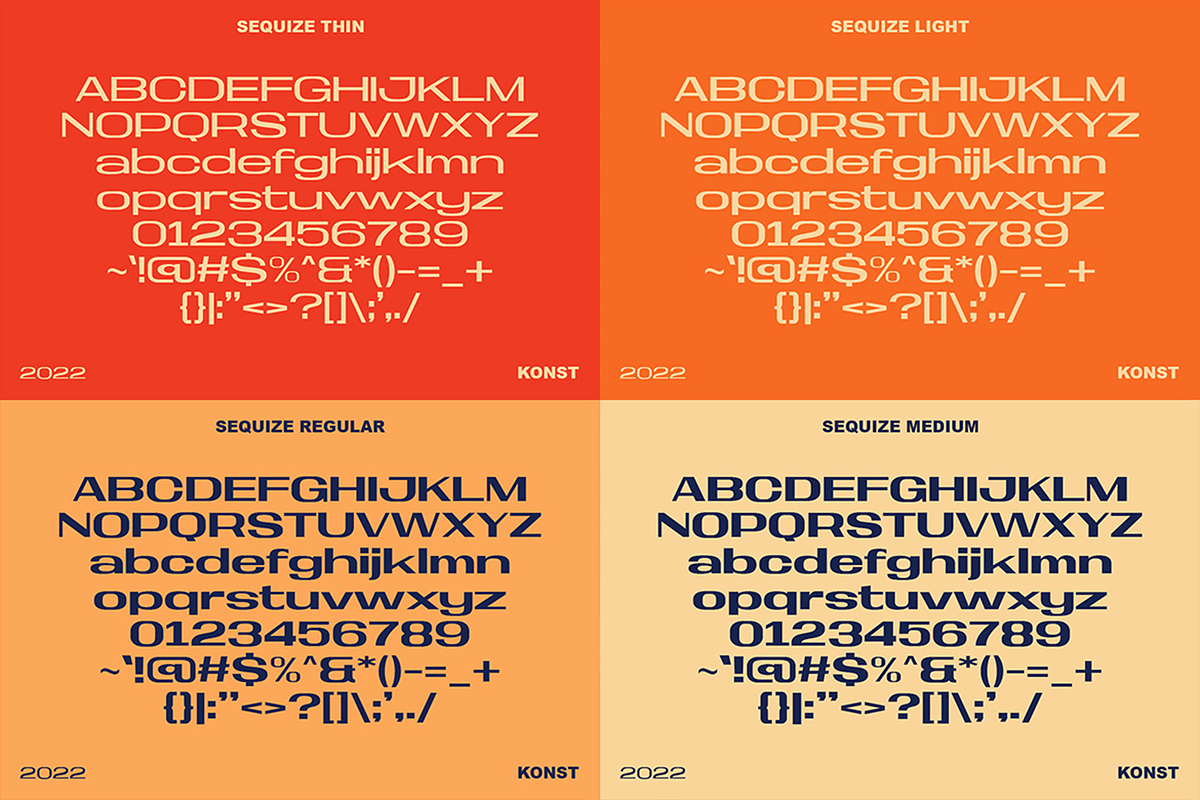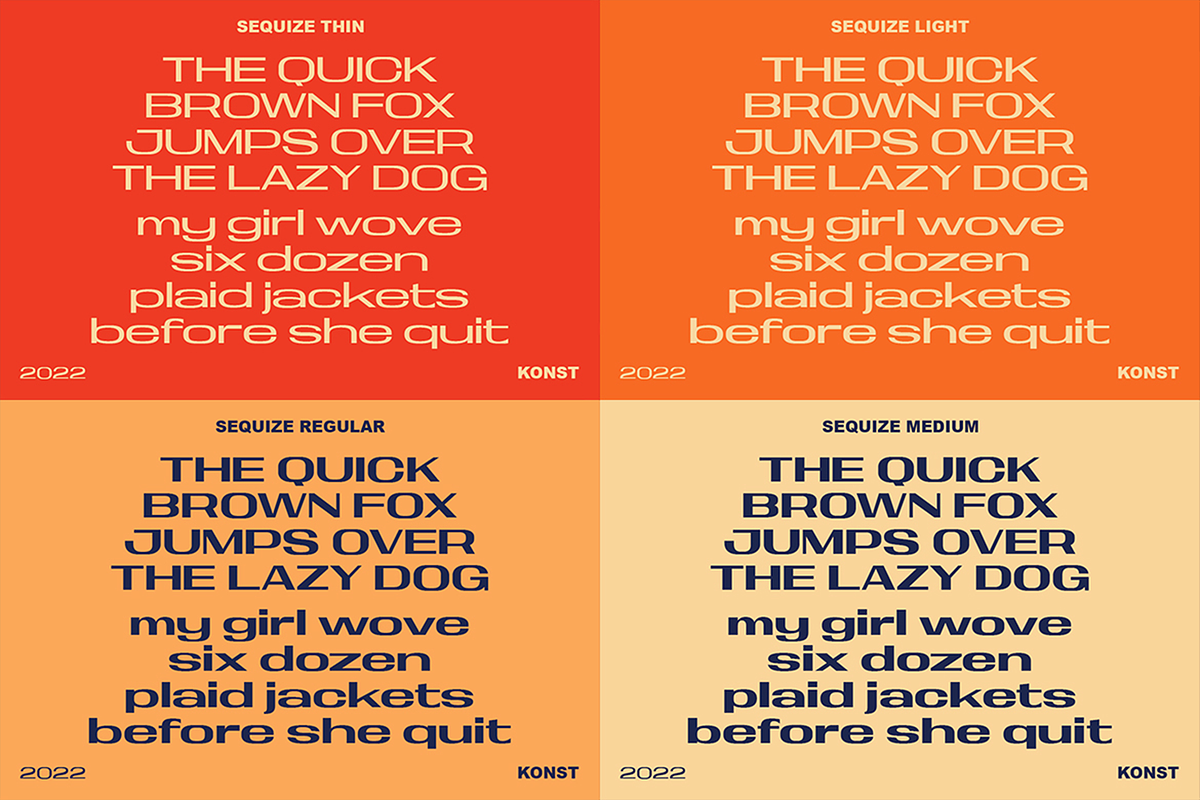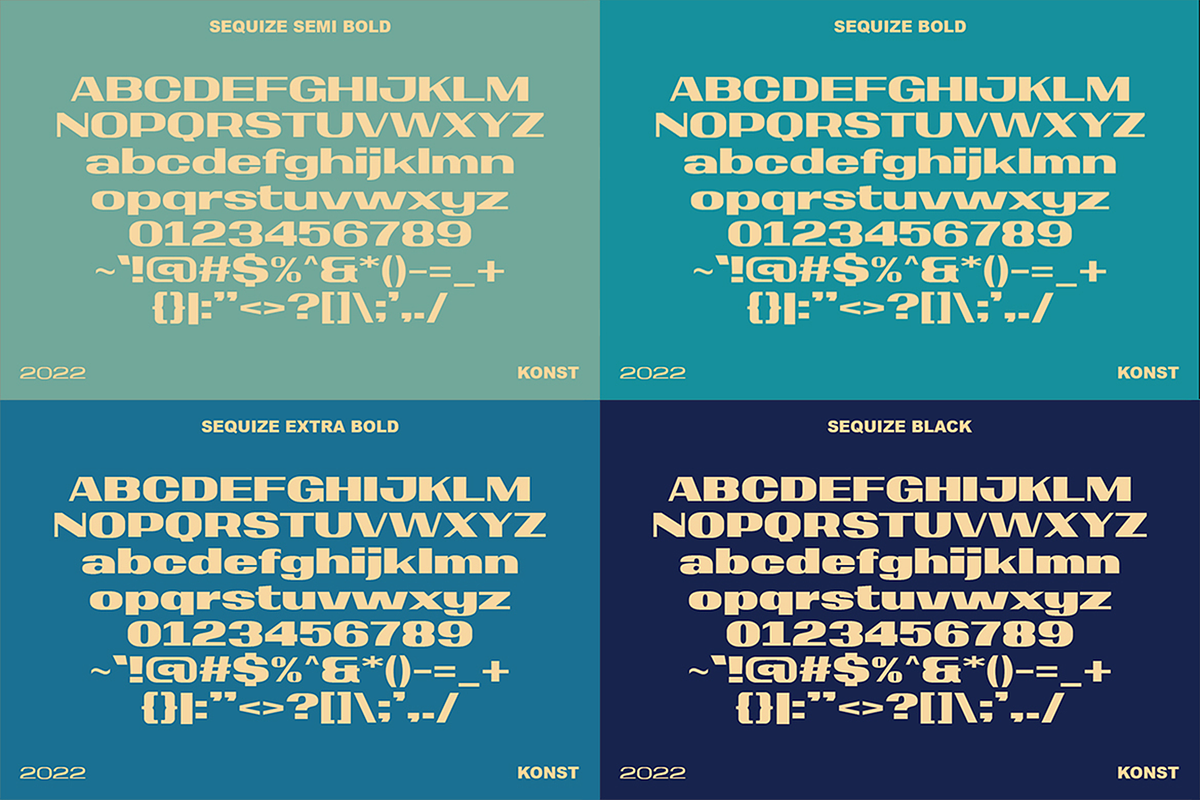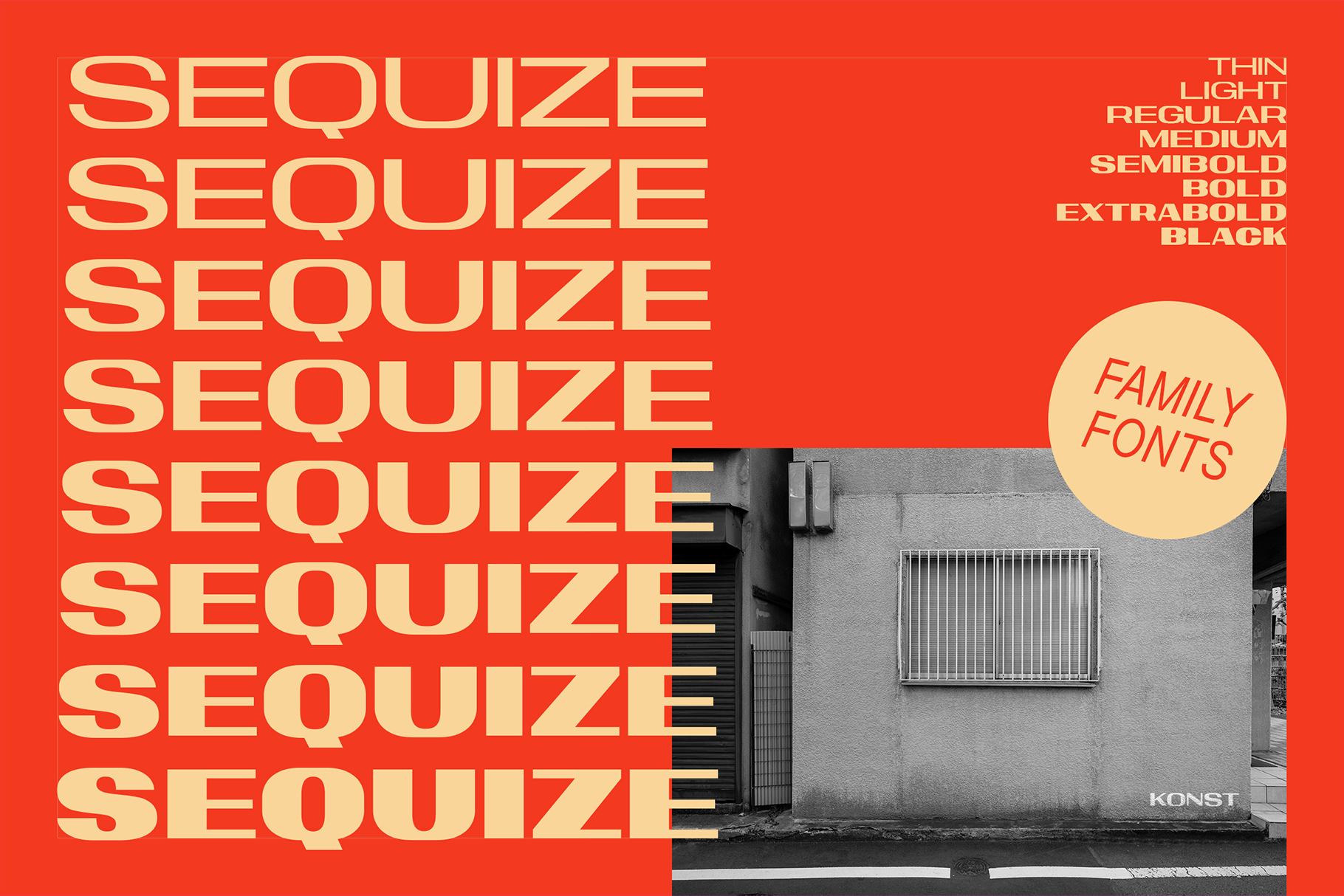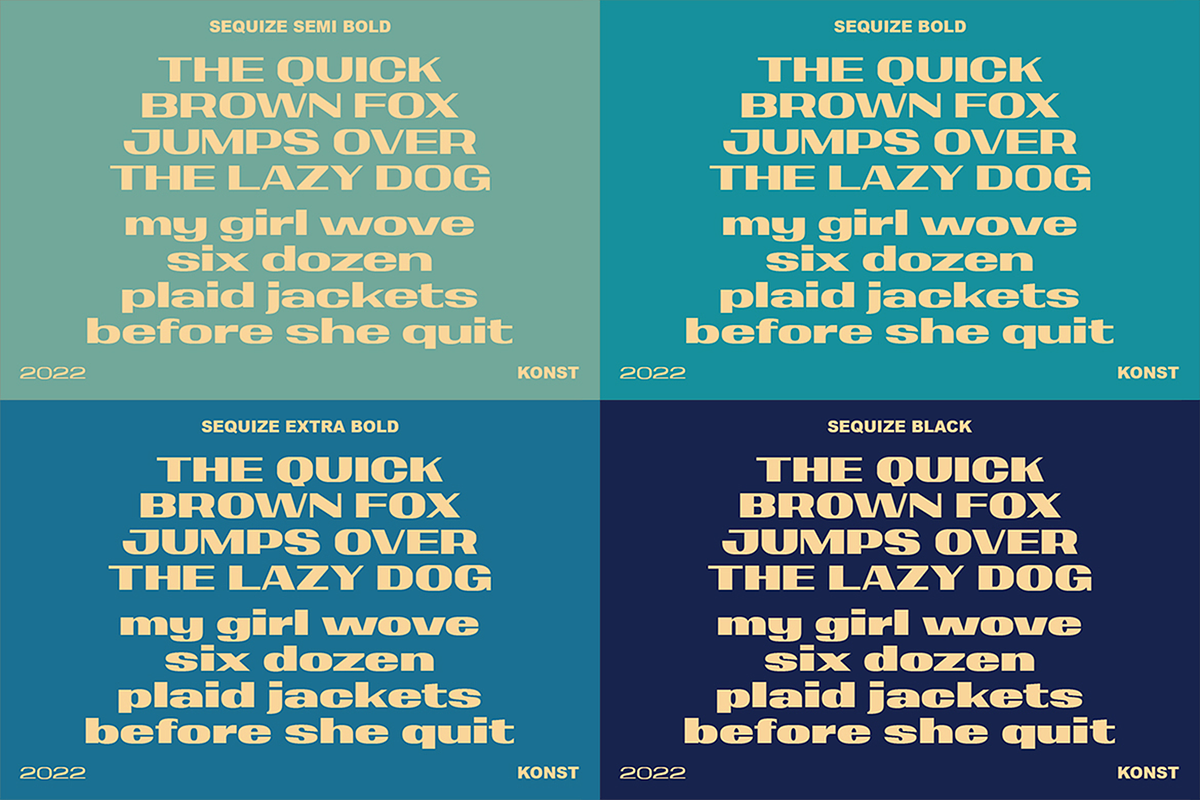
Sequize - Modern Extended Fonts
SEQUIZE is a family of modern extended family fonts to get yourself packed in order to face the future of Graphic Design trends.
Solid strong extended sans-serif typeface with a lot of possibilities to conquer the space of visual stuff. Perfectly fit for your logo, branding, poster, social media content, loud statement, header, display product, packaging, magazine, fashion stuff, and many more.